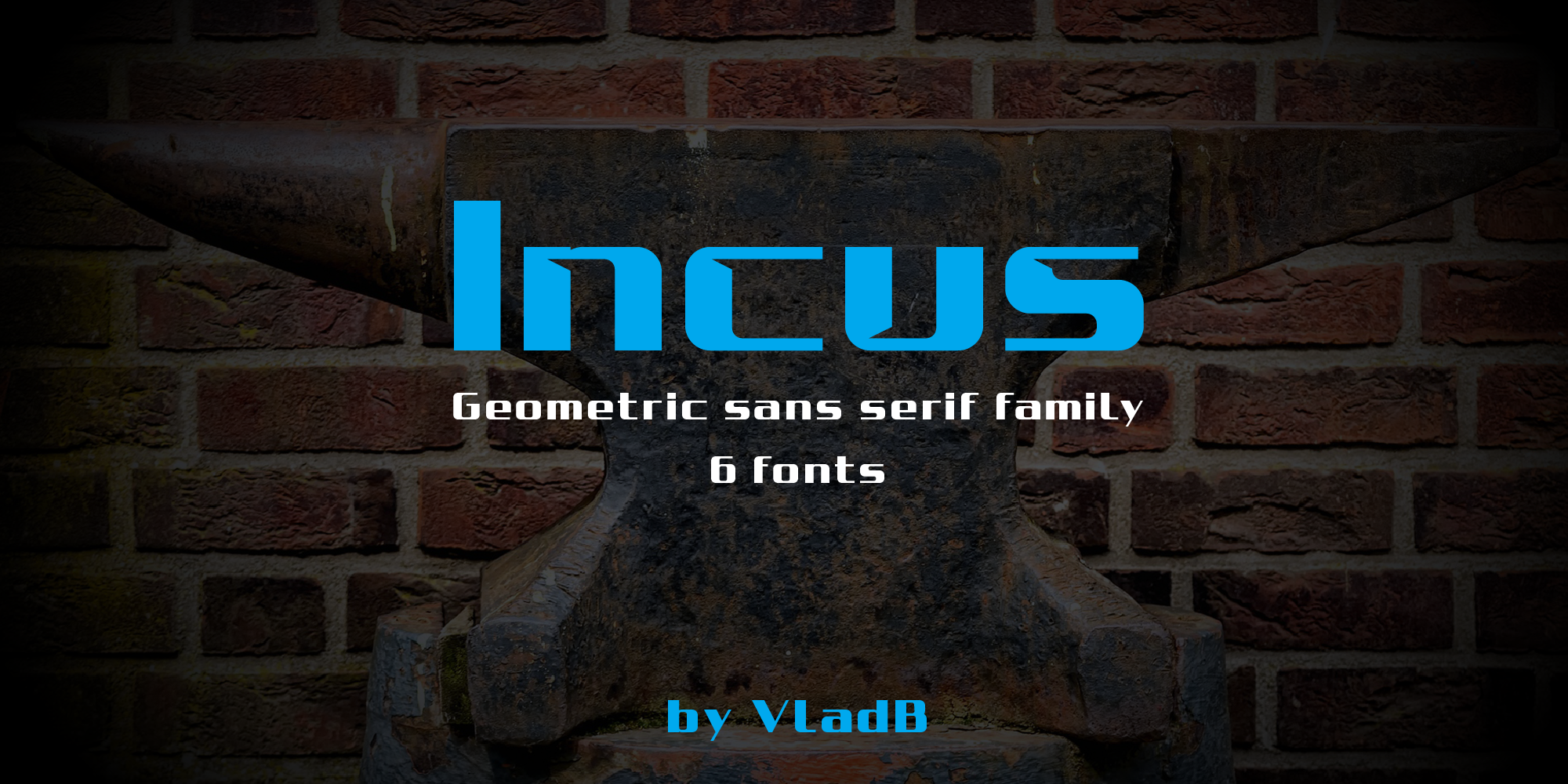
Incus Font Free Download is a modern and bold sans-serif typeface designed for strong visual communication. With its geometric structure, sharp edges, and clean lines, this font is perfect for branding, posters, web design, editorial layouts, and promotional materials that demand a sleek and powerful presence.
The precise and confident letterforms of Incus ensure excellent readability and a contemporary aesthetic across both print and digital platforms. Whether you are designing attention-grabbing headlines, stylish logos, or professional marketing materials, Incus Font Free Download provides a dynamic and sophisticated look.
Available in multiple weights and optimized for versatility, Incus offers designers the flexibility to craft bold and cohesive visual identities. Download Incus Font Free Download today and enhance your creative projects with strength and modern style.